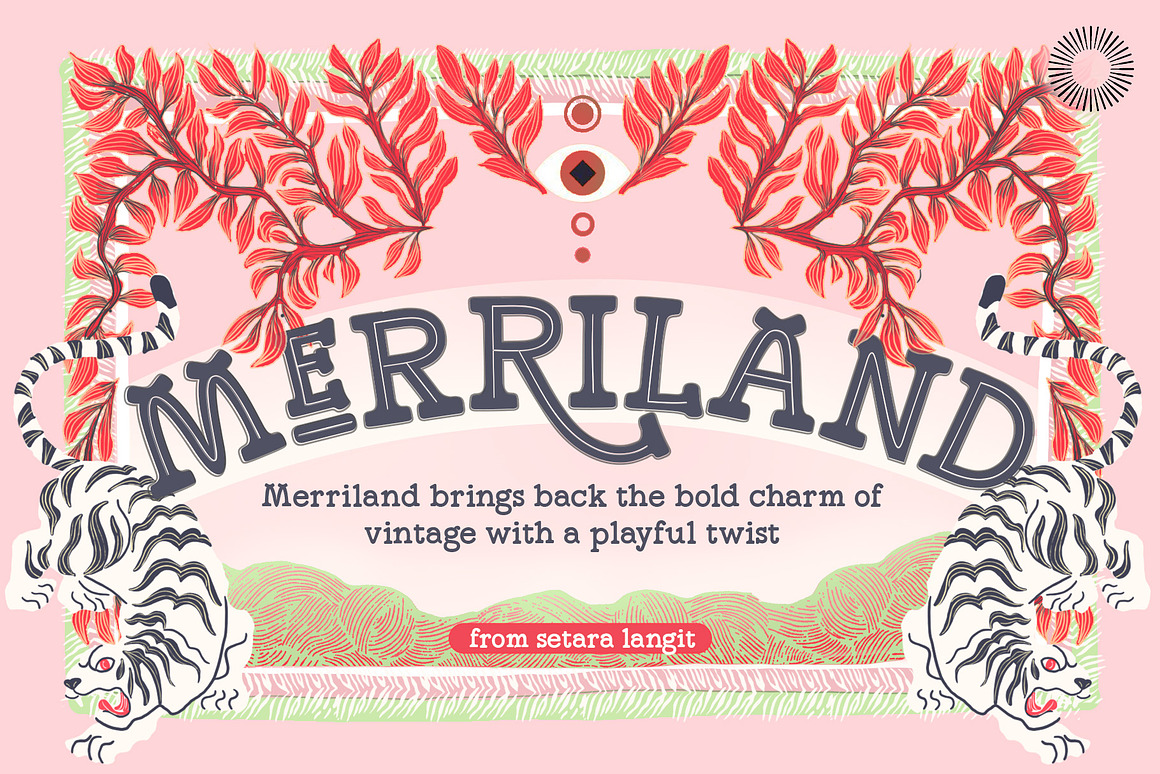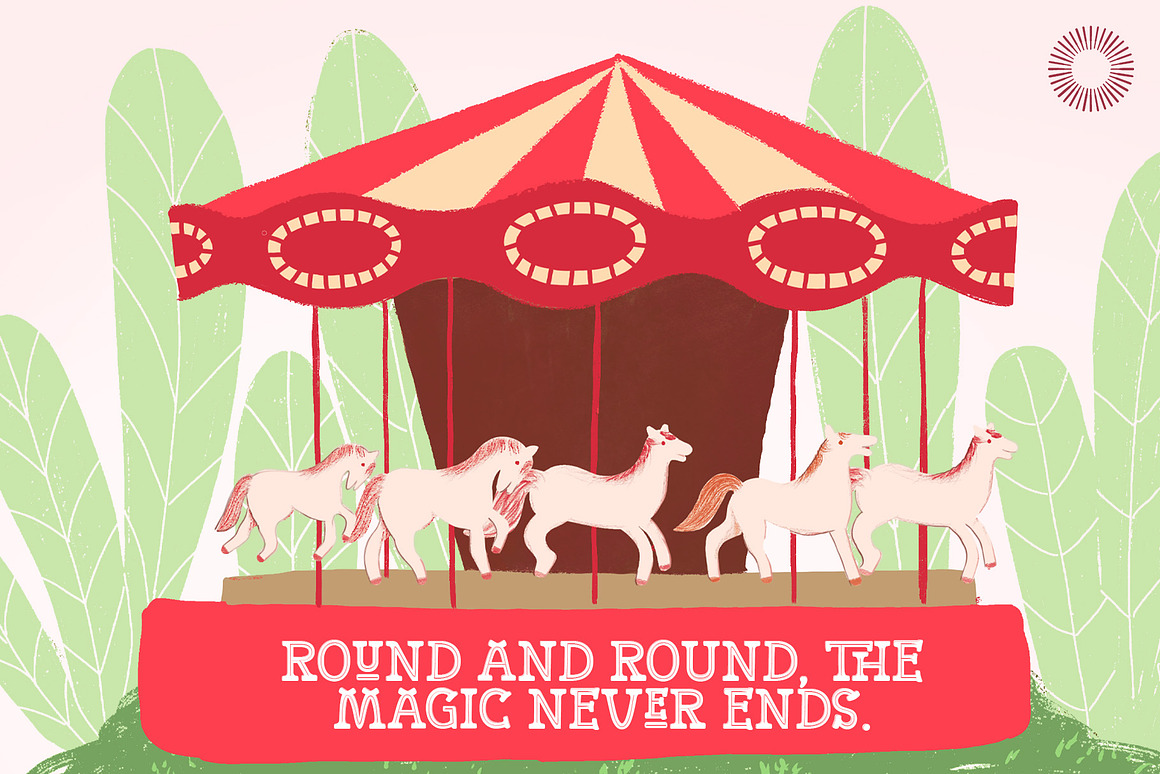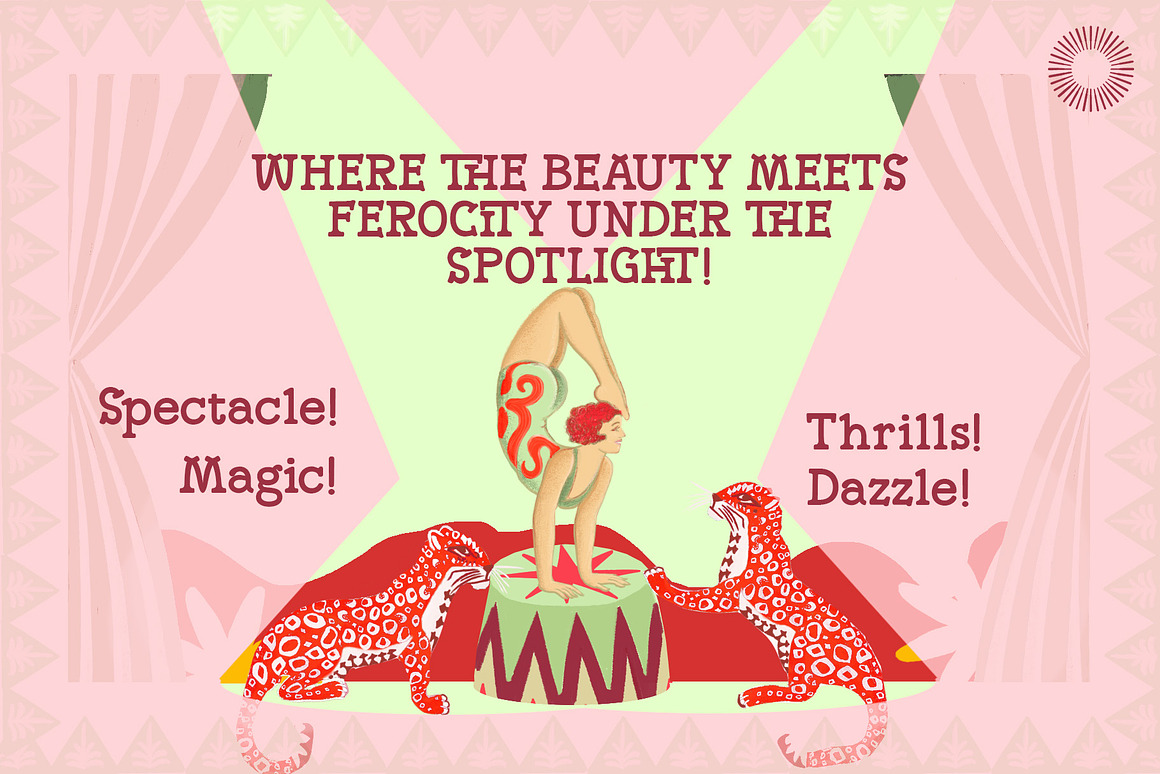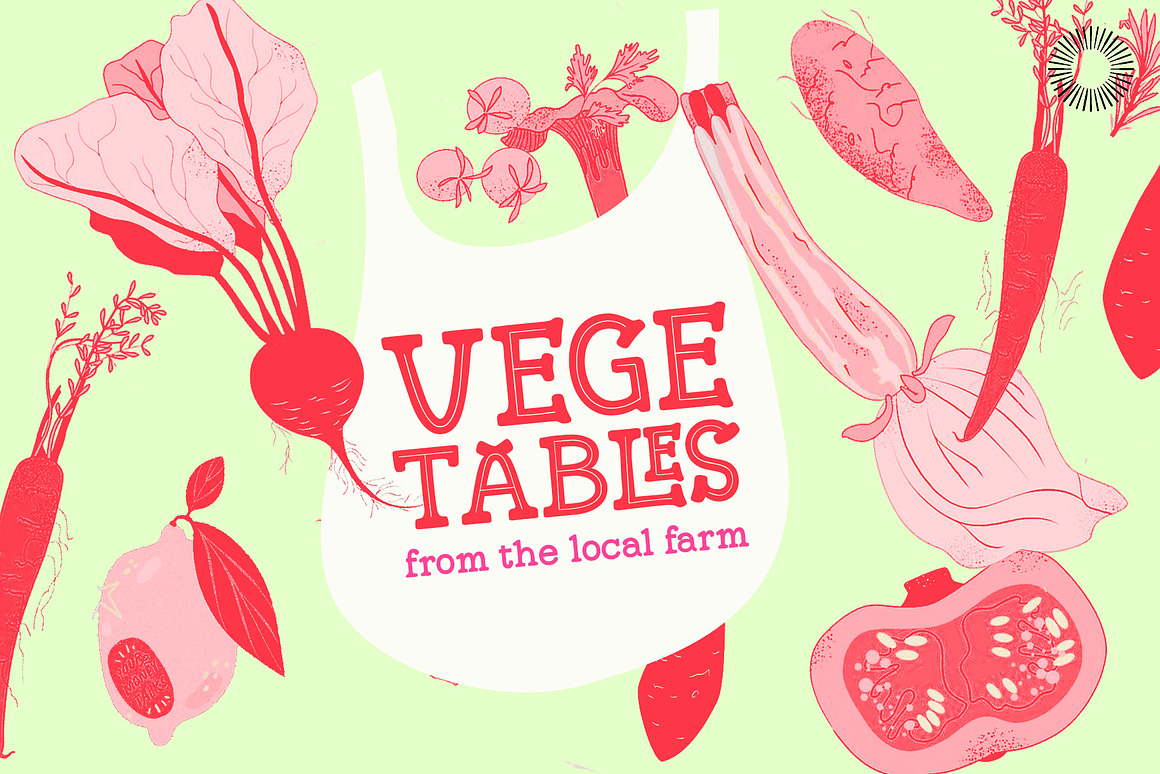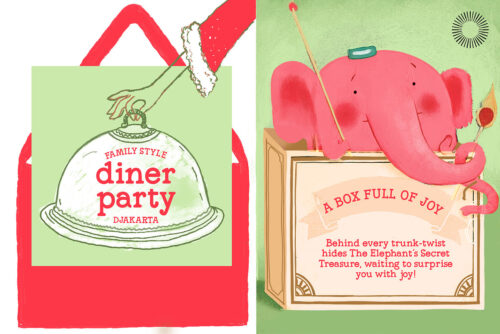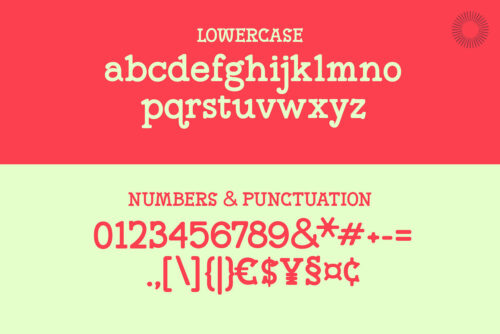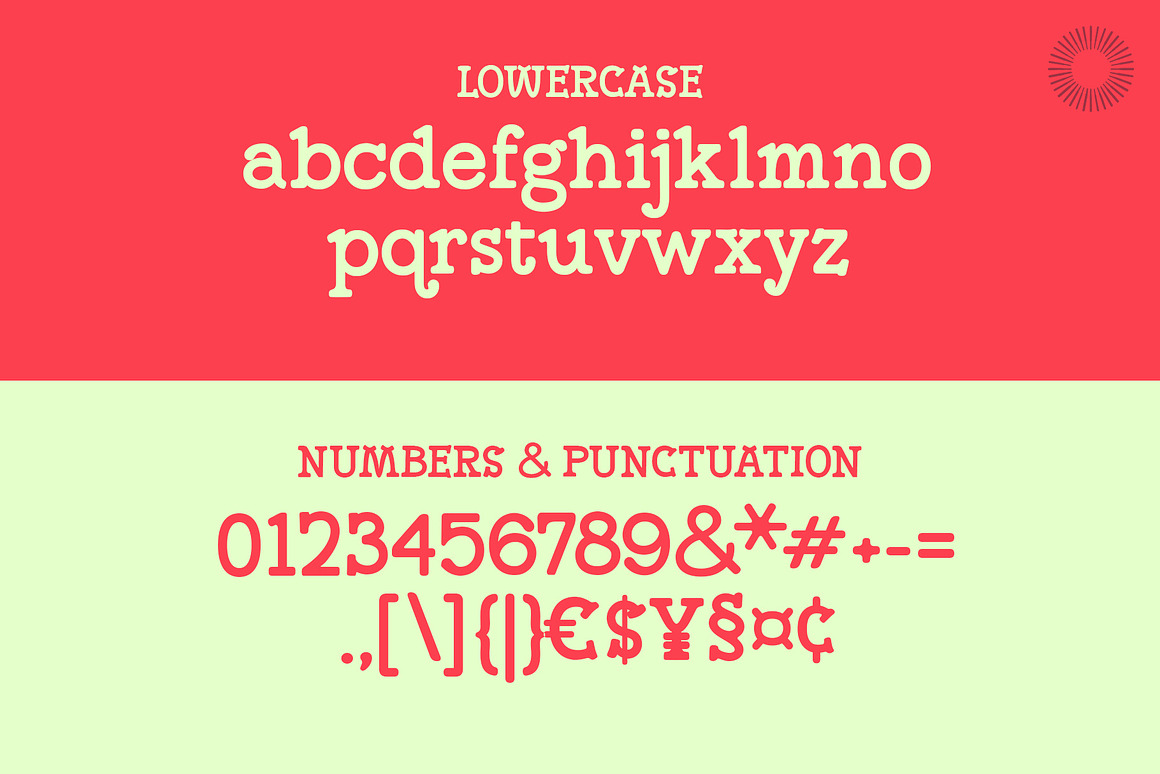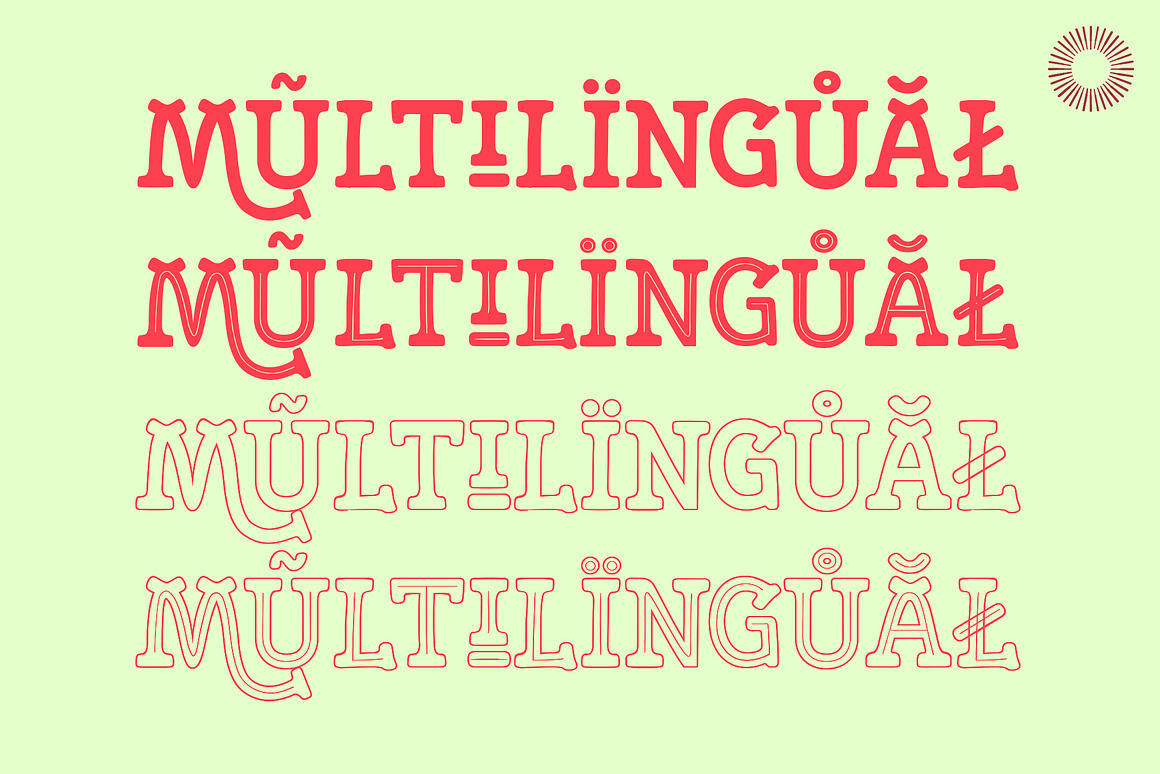
Merriland – Retro Carnival Font
Merriland – Retro Carnaval is inspired by the bold serifs of vintage wood-type posters and the playful energy of circus lettering.
It captures the magic of old-time carnivals, western saloons, and colorful retro signage, bringing that sense of spectacle into modern design. With chunky serifs, quirky variations, and a bold structure, Merriland feels like a headline act—designed to grab attention and set the stage with confidence. Every letter carries a sense of celebration, balancing strength with charm. The playful “A, M, & W” and sturdy slab forms create a typeface that feels both nostalgic and lively, like a carnival parade frozen in type.
Feature
• Multilingual support
• Uppercase & lowercase
• Numerals & punctuation